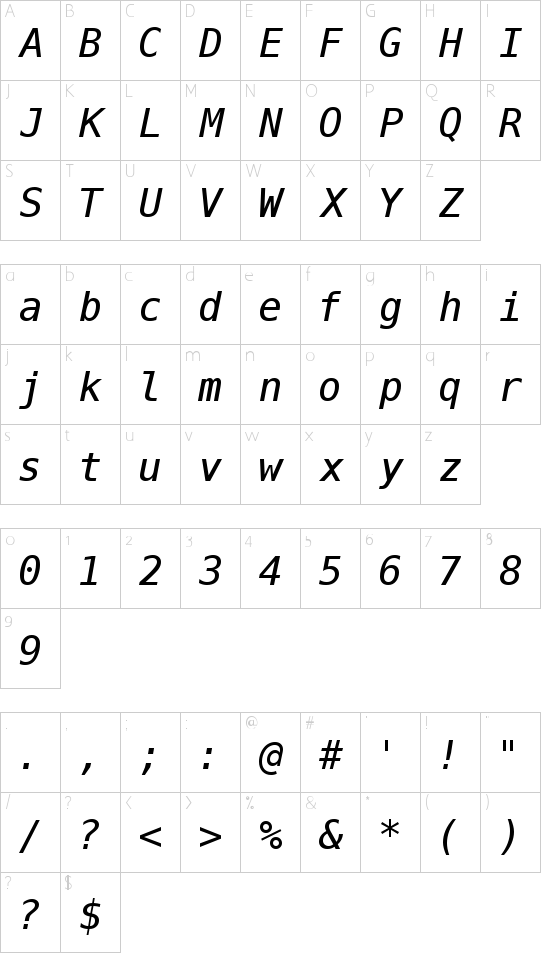
Dejavu Sans Mono Font
Dejavu Sans Mono Font - The dejavu fonts are a font family based upon bitstream vera v1.10. Web download dejavu sans mono font family, a truetype font with 20,000+ commercial fonts. Its purpose is to provide a wider range of characters while. Download free dejavu sans mono font by. Web the dejavu fonts are a font family based on the vera fonts.
Its purpose is to provide a wider range of characters while. The dejavu fonts are a font family based upon bitstream vera v1.10. Web the dejavu fonts are a font family based on the vera fonts. Download free dejavu sans mono font by. Web download dejavu sans mono font family, a truetype font with 20,000+ commercial fonts.
The dejavu fonts are a font family based upon bitstream vera v1.10. Web the dejavu fonts are a font family based on the vera fonts. Download free dejavu sans mono font by. Web download dejavu sans mono font family, a truetype font with 20,000+ commercial fonts. Its purpose is to provide a wider range of characters while.
Web the dejavu fonts are a font family based on the vera fonts. The dejavu fonts are a font family based upon bitstream vera v1.10. Web download dejavu sans mono font family, a truetype font with 20,000+ commercial fonts. Download free dejavu sans mono font by. Its purpose is to provide a wider range of characters while.
Download free dejavu sans mono font by. The dejavu fonts are a font family based upon bitstream vera v1.10. Web download dejavu sans mono font family, a truetype font with 20,000+ commercial fonts. Its purpose is to provide a wider range of characters while. Web the dejavu fonts are a font family based on the vera fonts.
DejaVu Sans Mono font
Web the dejavu fonts are a font family based on the vera fonts. The dejavu fonts are a font family based upon bitstream vera v1.10. Its purpose is to provide a wider range of characters while. Download free dejavu sans mono font by. Web download dejavu sans mono font family, a truetype font with 20,000+ commercial fonts.
Download free dejavu sans mono font by. The dejavu fonts are a font family based upon bitstream vera v1.10. Its purpose is to provide a wider range of characters while. Web the dejavu fonts are a font family based on the vera fonts. Web download dejavu sans mono font family, a truetype font with 20,000+ commercial fonts.
Its purpose is to provide a wider range of characters while. Web download dejavu sans mono font family, a truetype font with 20,000+ commercial fonts. Download free dejavu sans mono font by. Web the dejavu fonts are a font family based on the vera fonts. The dejavu fonts are a font family based upon bitstream vera v1.10.
The dejavu fonts are a font family based upon bitstream vera v1.10. Web the dejavu fonts are a font family based on the vera fonts. Its purpose is to provide a wider range of characters while. Download free dejavu sans mono font by. Web download dejavu sans mono font family, a truetype font with 20,000+ commercial fonts.
Web download dejavu sans mono font family, a truetype font with 20,000+ commercial fonts. Its purpose is to provide a wider range of characters while. Web the dejavu fonts are a font family based on the vera fonts. Download free dejavu sans mono font by. The dejavu fonts are a font family based upon bitstream vera v1.10.
DejaVu Sans Mono Font Download
Web download dejavu sans mono font family, a truetype font with 20,000+ commercial fonts. Download free dejavu sans mono font by. Web the dejavu fonts are a font family based on the vera fonts. The dejavu fonts are a font family based upon bitstream vera v1.10. Its purpose is to provide a wider range of characters while.
Free font "DejaVu Sans Mono" by DejaVu Fonts
Its purpose is to provide a wider range of characters while. Web download dejavu sans mono font family, a truetype font with 20,000+ commercial fonts. Web the dejavu fonts are a font family based on the vera fonts. Download free dejavu sans mono font by. The dejavu fonts are a font family based upon bitstream vera v1.10.
DejaVu Sans Mono Font Family (4 styles) by DejaVu FontSpace
Its purpose is to provide a wider range of characters while. Download free dejavu sans mono font by. Web the dejavu fonts are a font family based on the vera fonts. The dejavu fonts are a font family based upon bitstream vera v1.10. Web download dejavu sans mono font family, a truetype font with 20,000+ commercial fonts.
Its Purpose Is To Provide A Wider Range Of Characters While.
Download free dejavu sans mono font by. Web the dejavu fonts are a font family based on the vera fonts. The dejavu fonts are a font family based upon bitstream vera v1.10. Web download dejavu sans mono font family, a truetype font with 20,000+ commercial fonts.